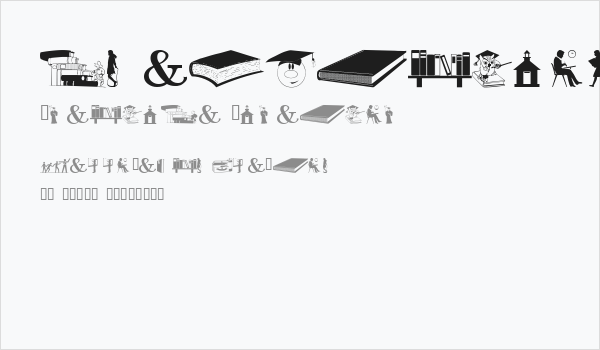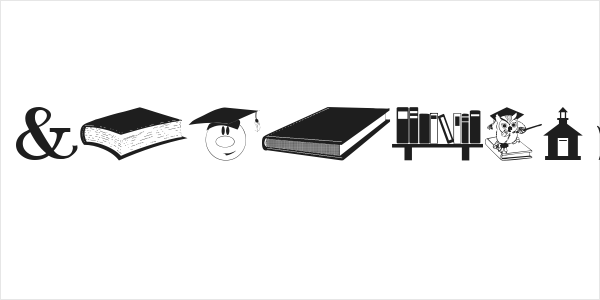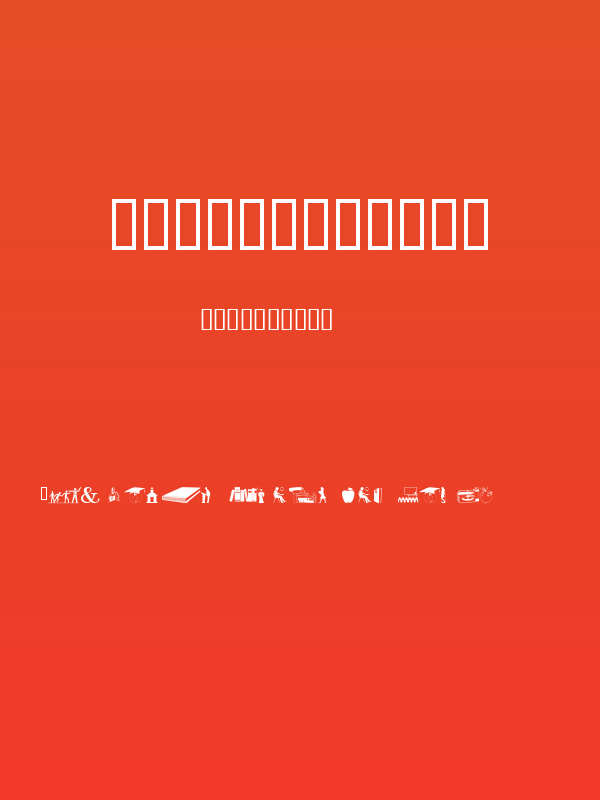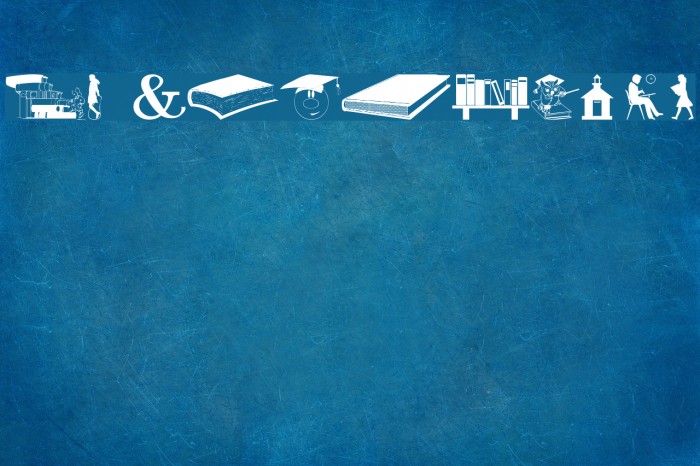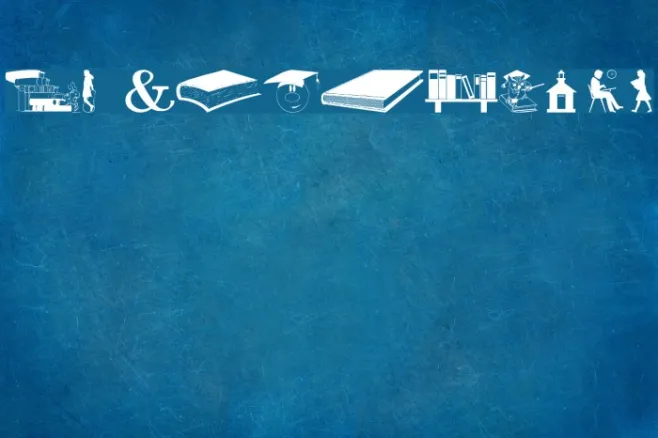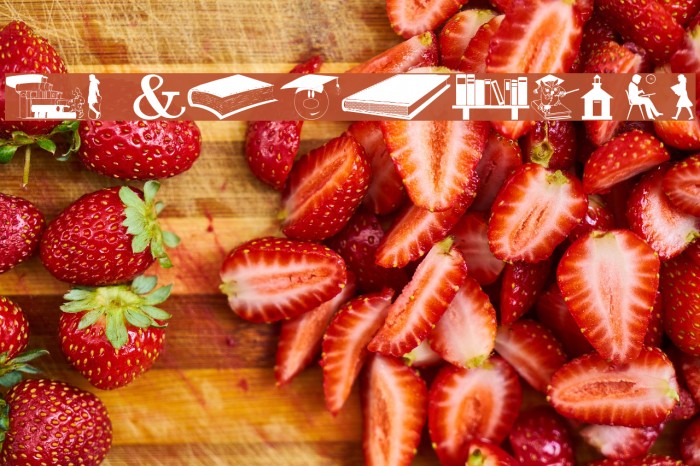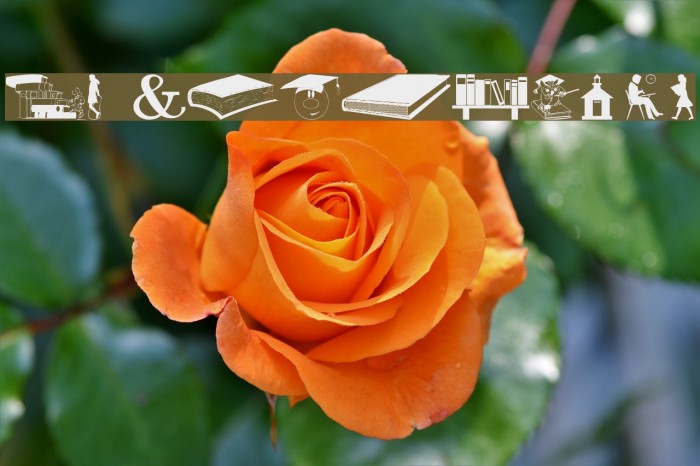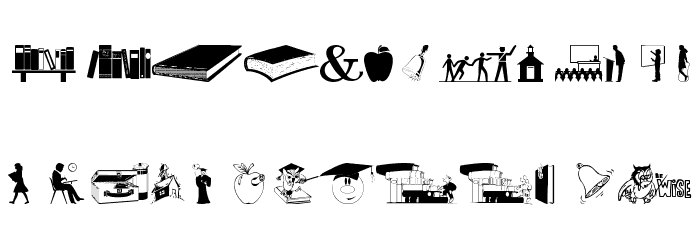
wmeducation1 Font
wmeducation1 Description
A collection of educational-themed pictograms including books, apples, teachers, students, graduation caps, chalkboards, and other school-related icons. Each character is represented by a unique, detailed black-and-white illustration.
| Overall Style | Decorative, Thematic |
| Use Case | Icons, Decorative elements, Themed graphics |
| Proposed Projects | Educational posters, school newsletters, classroom decorations, teaching materials, infographics, children's books. |